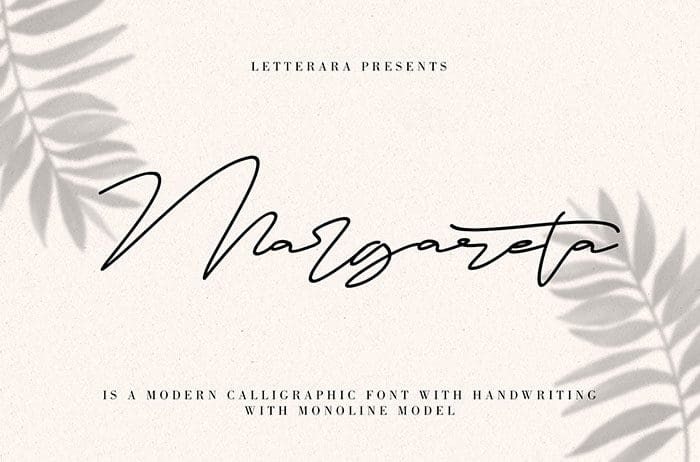
Free Margareta Script Font
Margareta Script Font
Free Margareta script font is a modern calligraphic font with handwriting with a mono-line model. It’s perfect for branding, logo, wedding invitations, diaries, cups, mugs and greeting cards and any other. Designed this font by Thomas Aradea. You can also search more free fonts. Thanks!